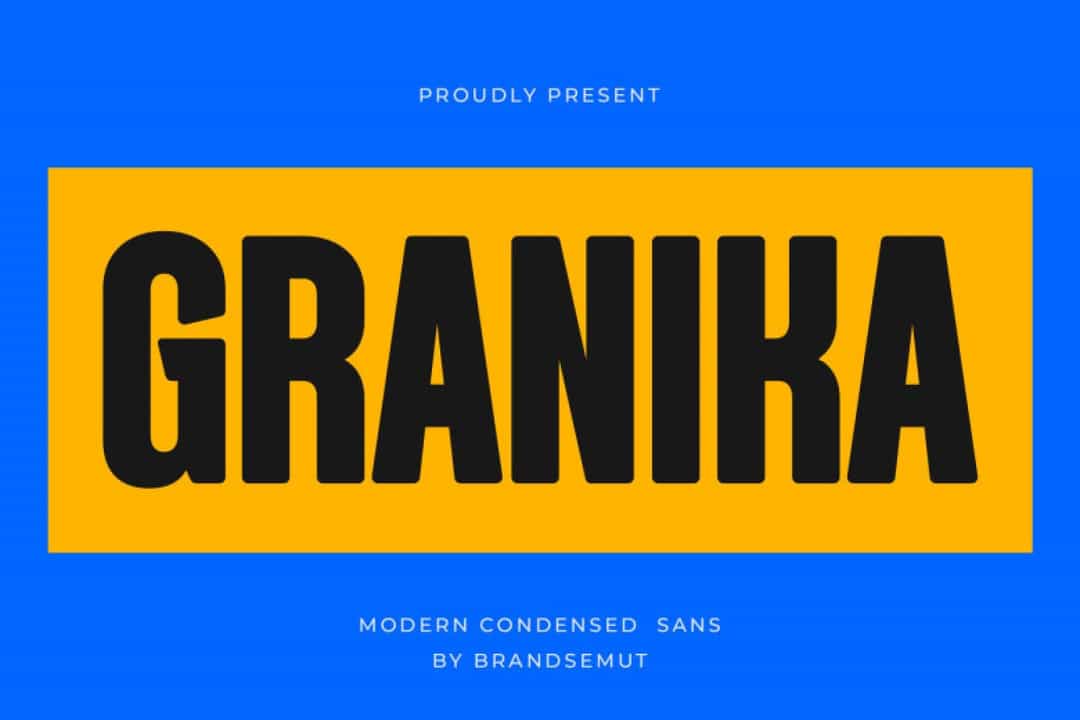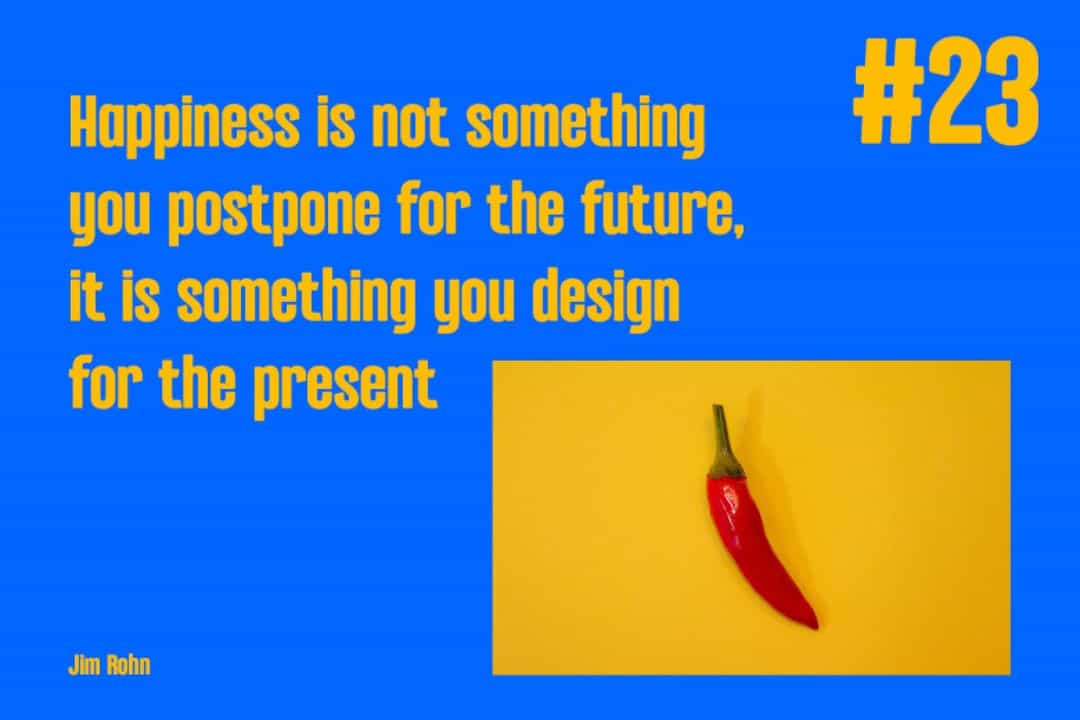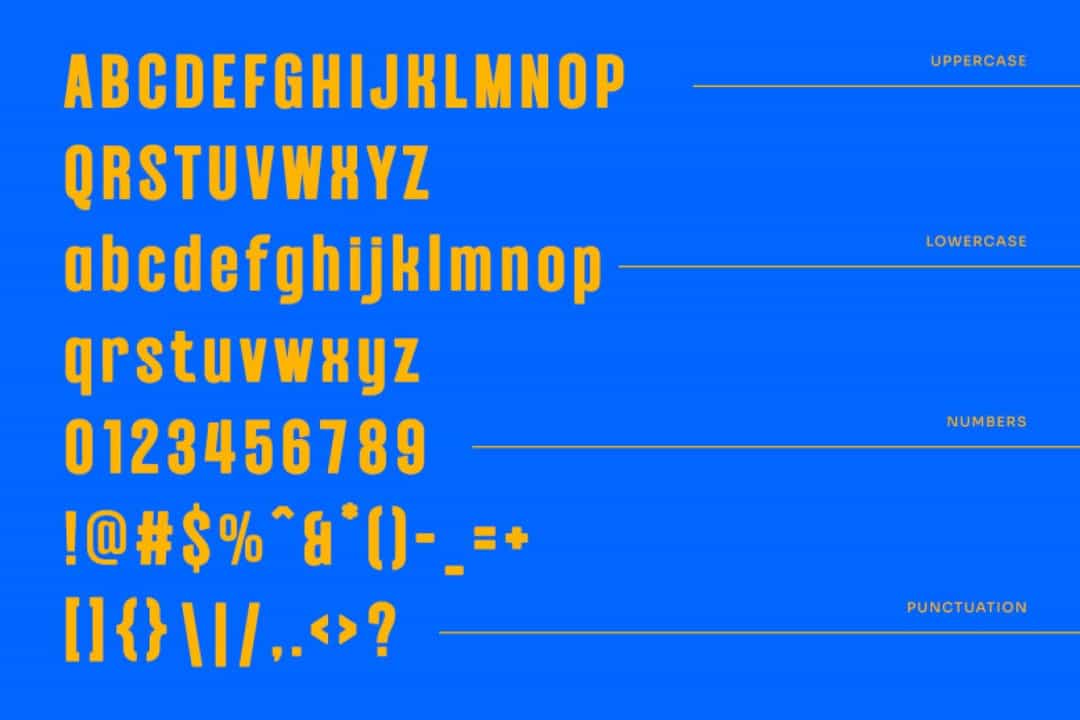
Granika Font
Granika is a modern and simplified sans-serif font ideal for branding, headings, logos magazines product packaging and invitations. Featuring straight edges and smooth curvatures that add an air of sophistication to any project.